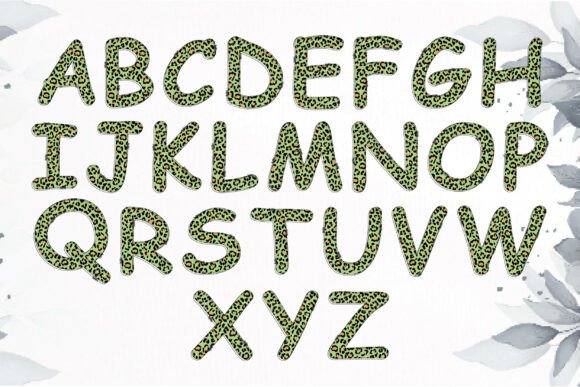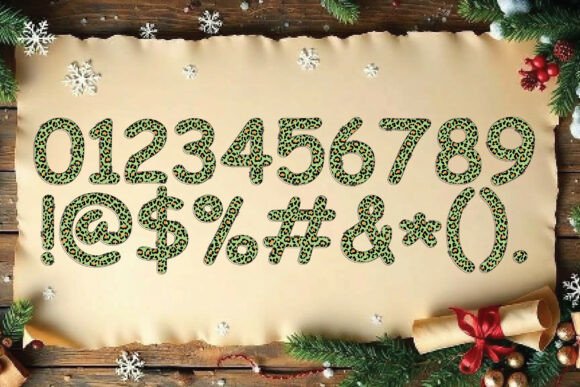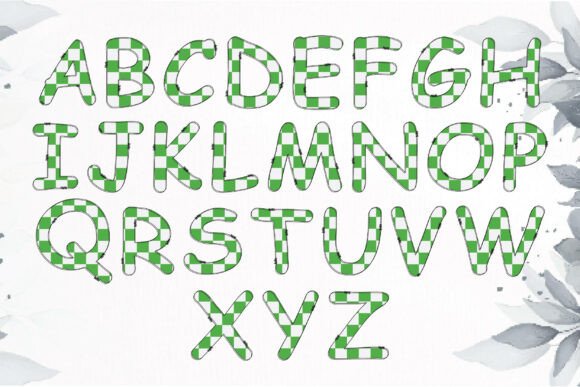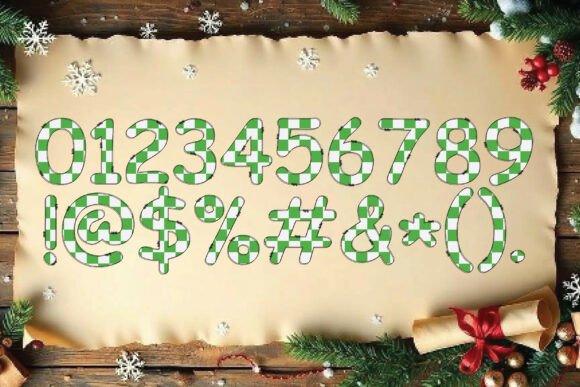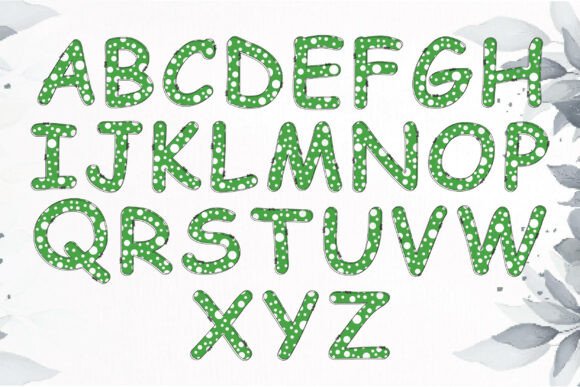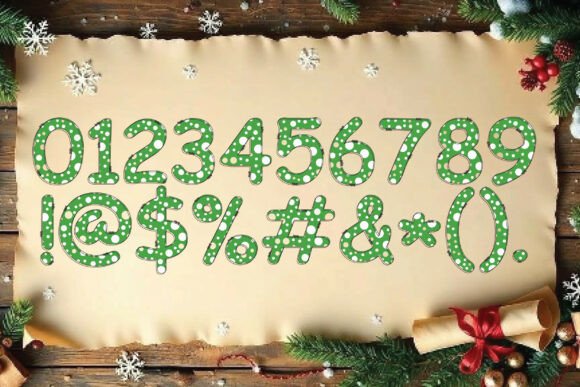
Introduction to Shamrock Alphabets Font Font
Fonts play a crucial role in design, and the Shamrock Alphabets Font font is a typeface that brings both character and versatility to any project. Whether you’re working on a branding project, a website, or a print design, the Shamrock Alphabets Font font offers a unique style that can elevate your work.
Shamrock Alphabets for Sublimation Celebrate the festive spirit of St.
Patrickβs Day with this versatile 4-font bundle featuring Patrick Line Yellow, St Patrick Day, St.
Key Features of Shamrock Alphabets Font Font
Why Choose Shamrock Alphabets Font Font?
The Shamrock Alphabets Font font is more than just a typeface β it’s a design tool that helps you communicate your message with style and clarity. Its unique character set and versatile design make it suitable for a wide range of applications, from elegant invitations to bold headlines.
With its carefully crafted letterforms and balanced proportions, the Shamrock Alphabets Font font ensures readability and visual appeal across all mediums.
What makes Shamrock Alphabets Font font special?
The Shamrock Alphabets Font font stands out with its unique design, exceptional readability, and versatility across various design applications.